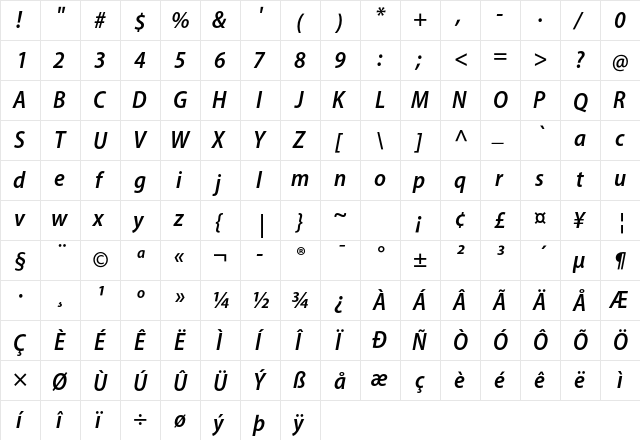
Myriad Pro Semibold SemiCondensed Italic Font Preview
| Style | Semibold SemiCondensed Italic |
| Designer | Robert Slimbach and Carol Twombly |
Design Context for Myriad Pro Typeface
Myriad Pro offers clean, dependable letterforms without strong stylistic allegiance, making it a practical choice for designers who need flexibility. The dynamic lean of this cut emphasises speed and emphasis in any layout. Its bold stroke weight gives it real presence on the page. Its narrow stance lets it pack a punch even in space-constrained designs.
Pro Tip: Try Myriad Pro for annotation and caption copy alongside an upright companion — the contrast in angle creates a dynamic but ordered typographic system.